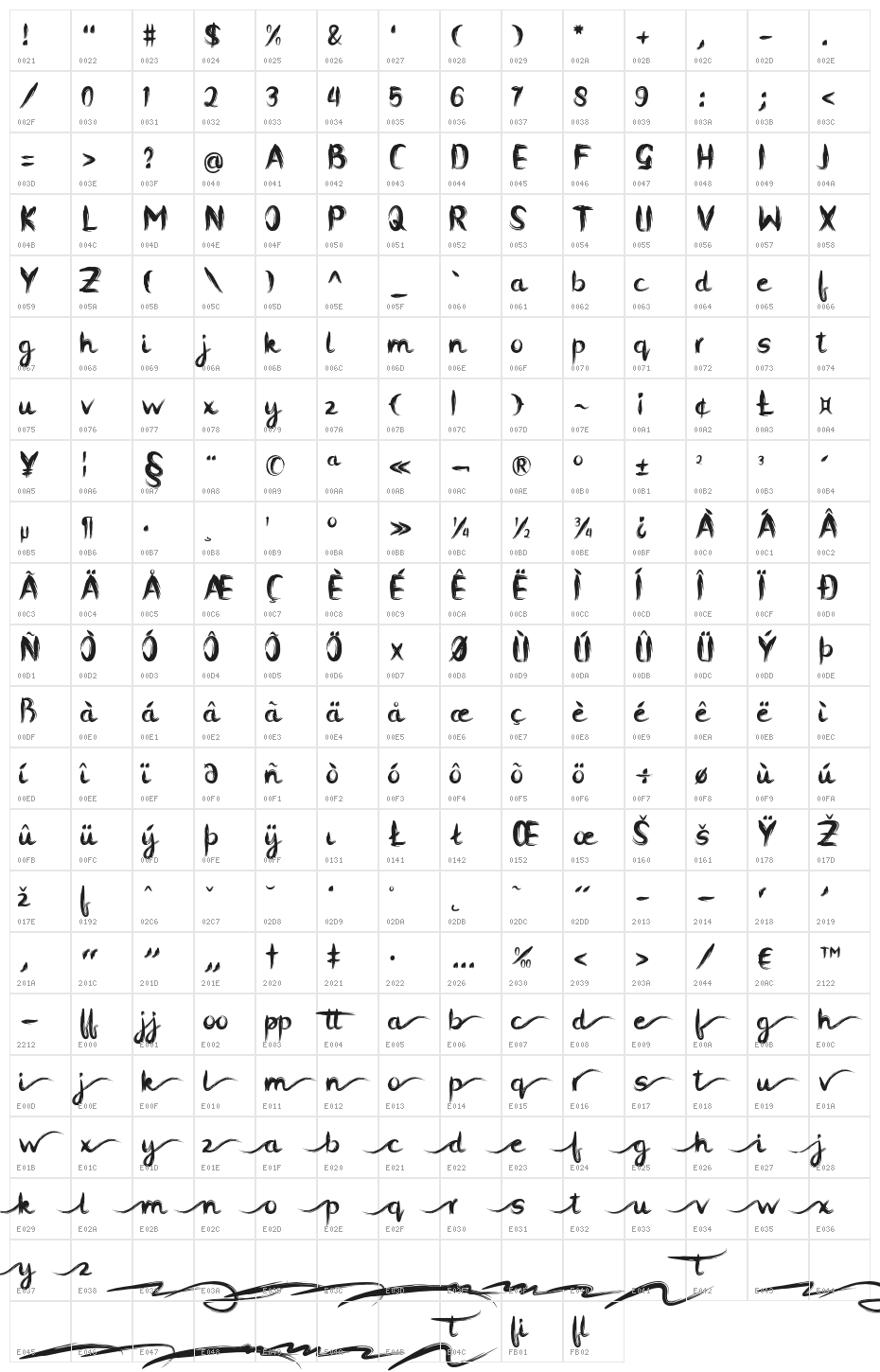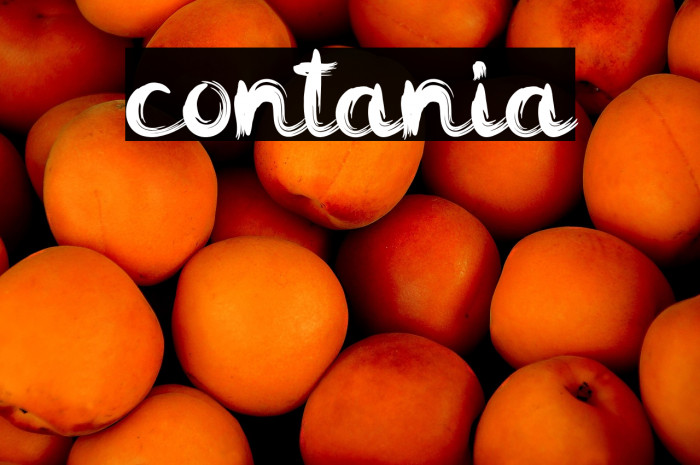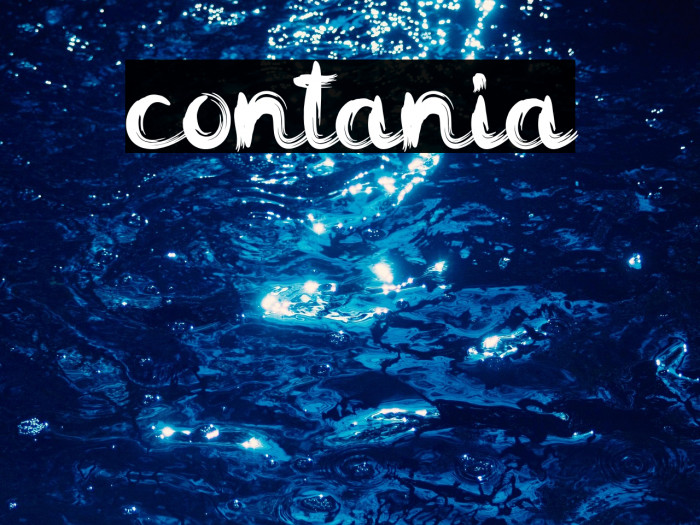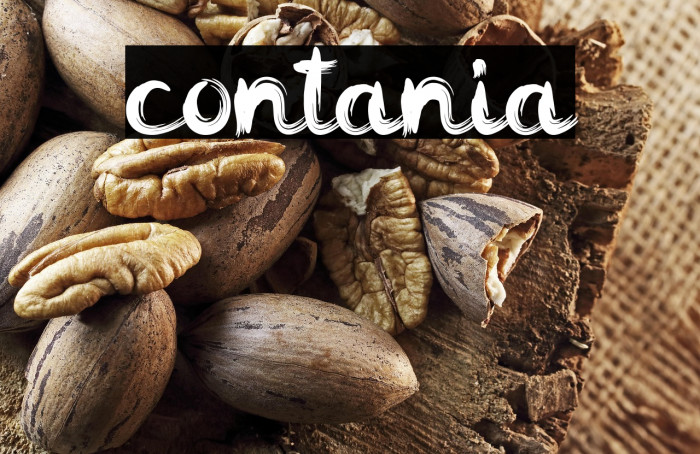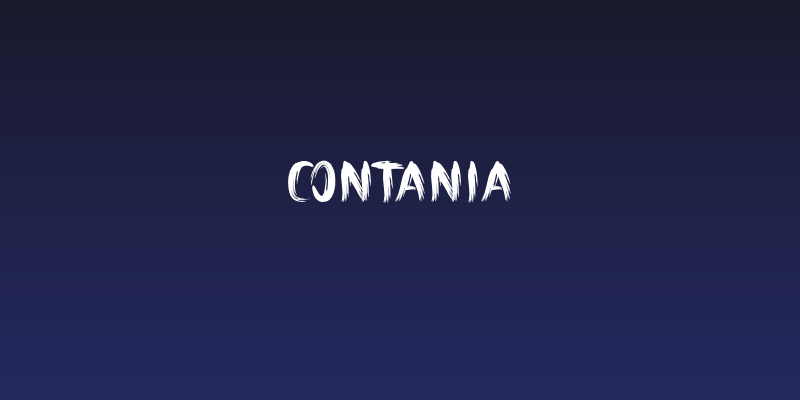
contania Font
contania Description
This font features a bold and expressive brushstroke style, characterized by its dynamic and energetic appearance. The letters have a hand-painted look, with varying thicknesses and irregular edges that give it a raw and artistic feel. The uppercase and lowercase letters maintain a consistent style, with a sense of movement and flow. The numbers and special characters are equally expressive, adding to the overall cohesive design. This font is ideal for projects that require a bold statement and a creative touch.
| Overall Style | Artistic, Expressive, Dynamic |
| Proposed Projects | Ideal for branding, posters, album covers, and any creative projects that require a bold and artistic touch. |